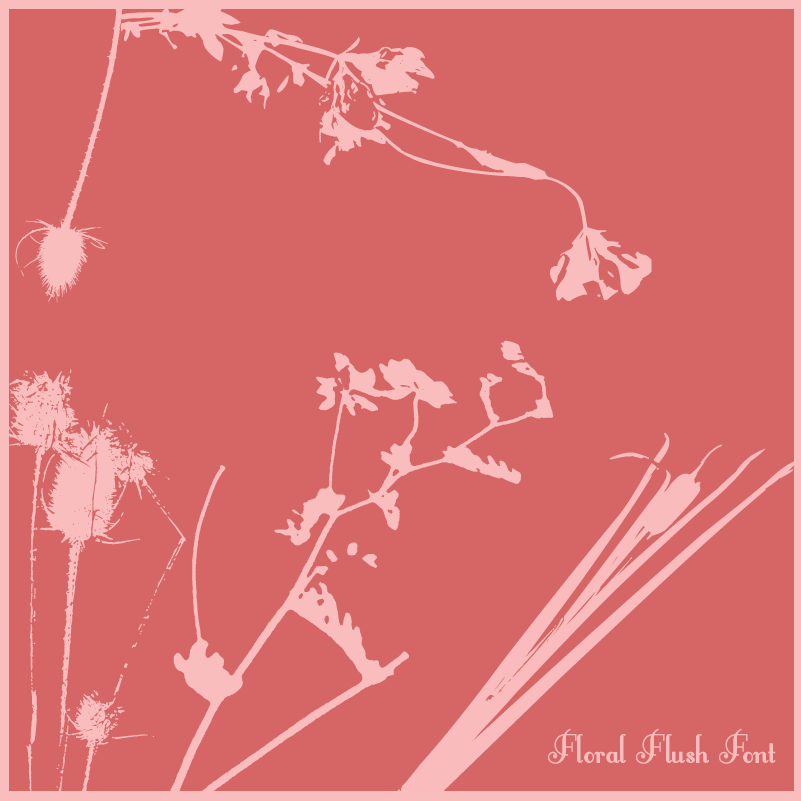
I finally finished working on my Floral Flush font of stems and flowers, so you can do that whole look they do at Walmart on the planners, notebooks, folders and journals that are now found on bags at the Family Dollar… You know, this look…
Eventually, I’ll provide photoshop brushes of the grayed look.
The beautiful thing about fonts as opposed to photoshop elements is that a font can be used on any program you have, and unless you have Photoshop or something similar to it, or the experience using a program like that, you really don’t have much options for pictures to use. As a font, these images can be used on any program that has text. The best thing is, because it’s a font, you don’t have to worry about pixelation issues when enlarging.